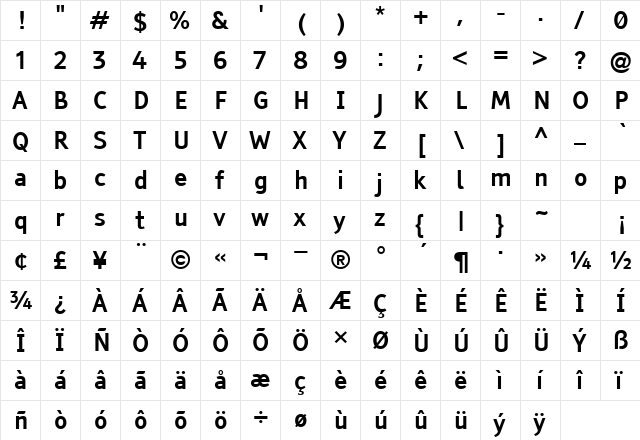
Tiresias Infofont Z Regular
Design Context for Tiresias Infofont Z Typeface
Tiresias Infofont Z takes a measured approach to typography — its balanced proportions and neutral character make it a reliable workhorse for both digital and print work.
Pro Tip: Use Tiresias Infofont Z in both headline and body roles to test its range before committing to a single application.